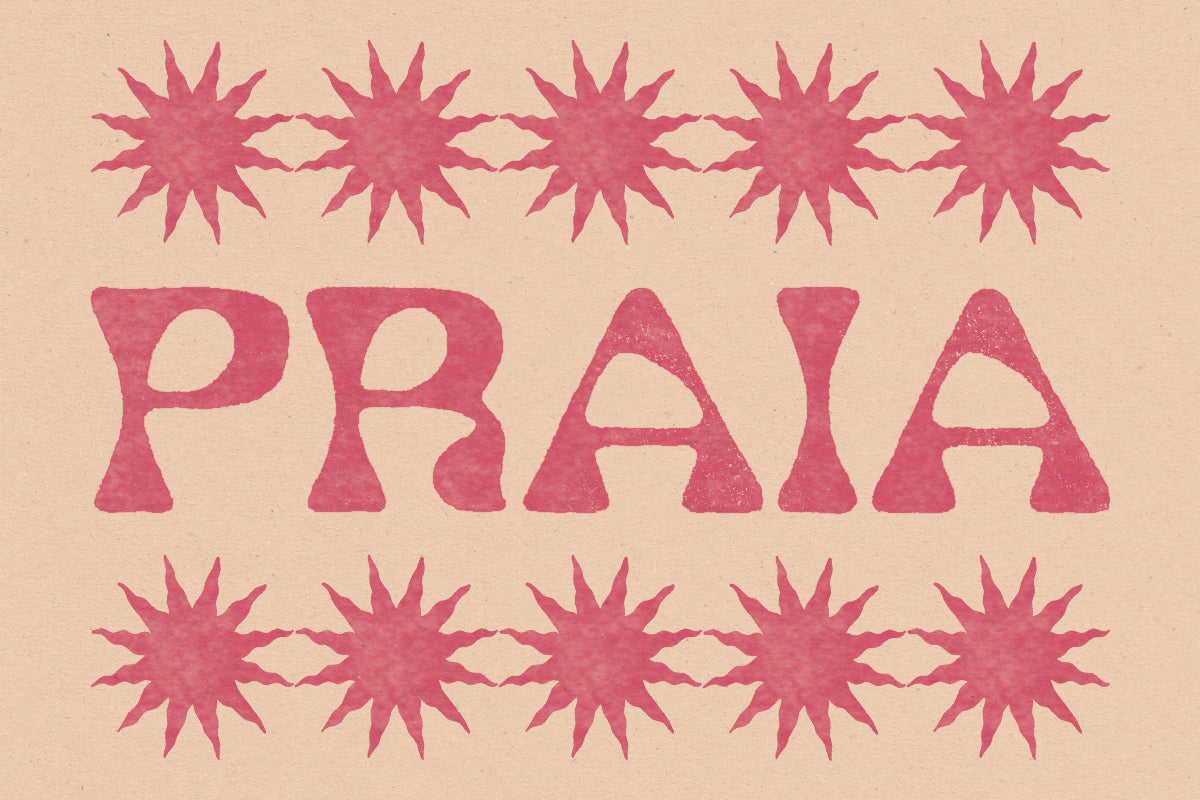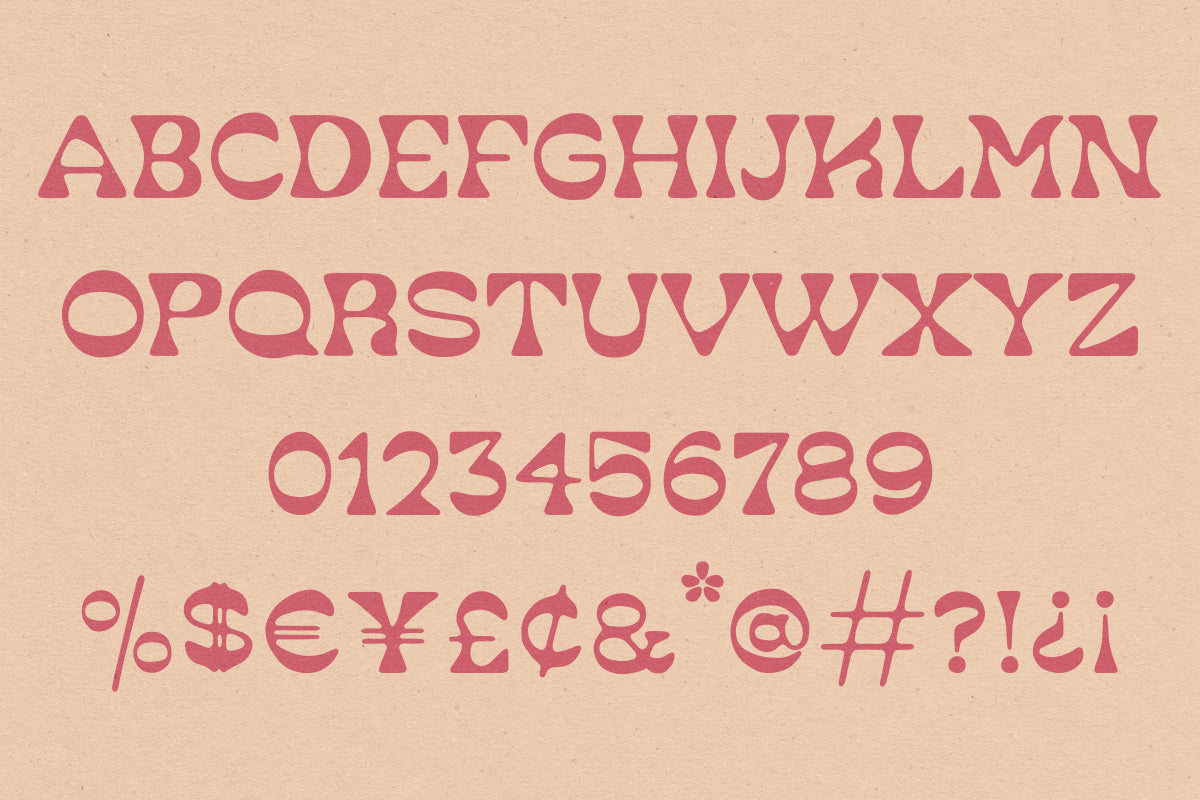
Praia Typeface
The sea is my very favourite place to be, so how could I resist making a font inspired by the beach? This kind of wavy, contrasting typeface reminds me of the ripples of the water on a perfect beach day, where you can swim for hours under the sun and not notice the time go by. I like to imagine this one on the sign of some remote beach café that's only open when they feel like it, and only serves whatever it is that they have around that day.